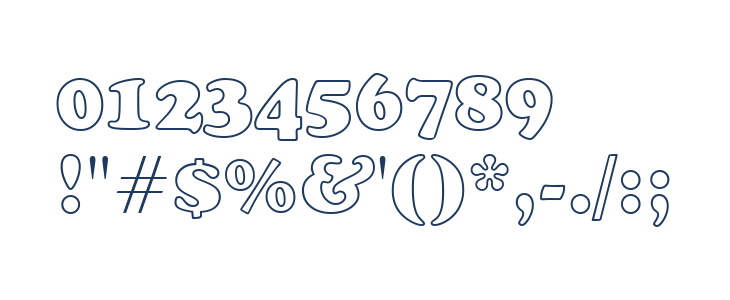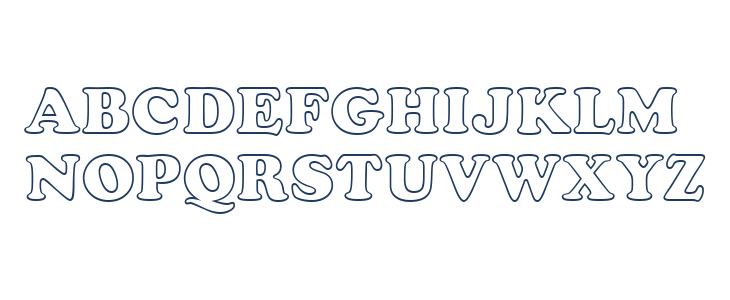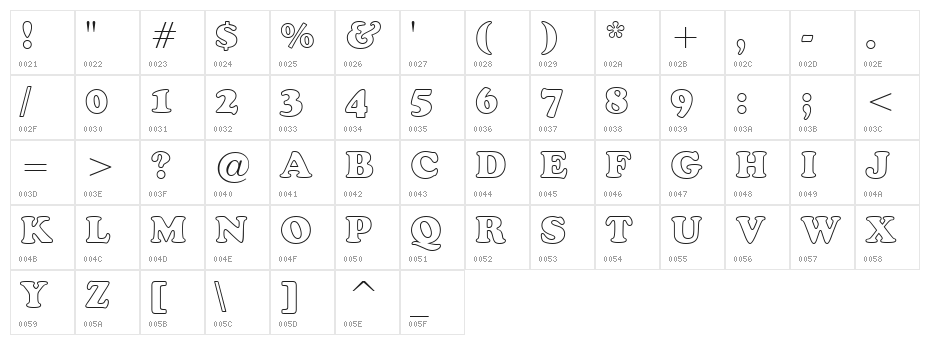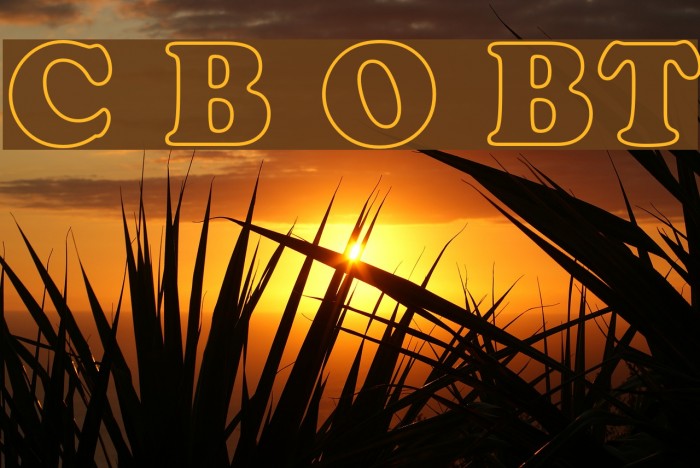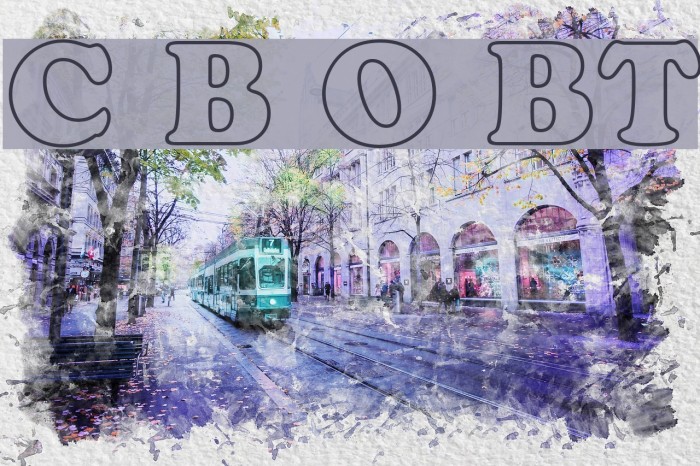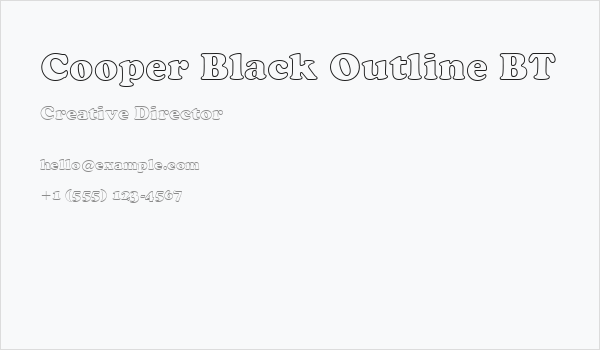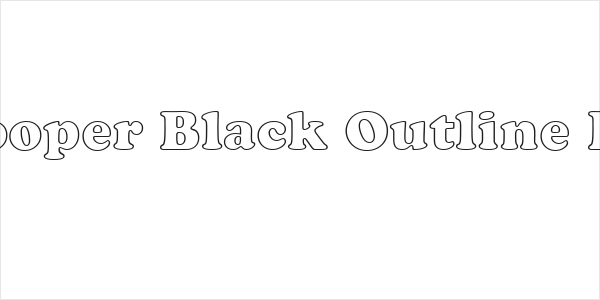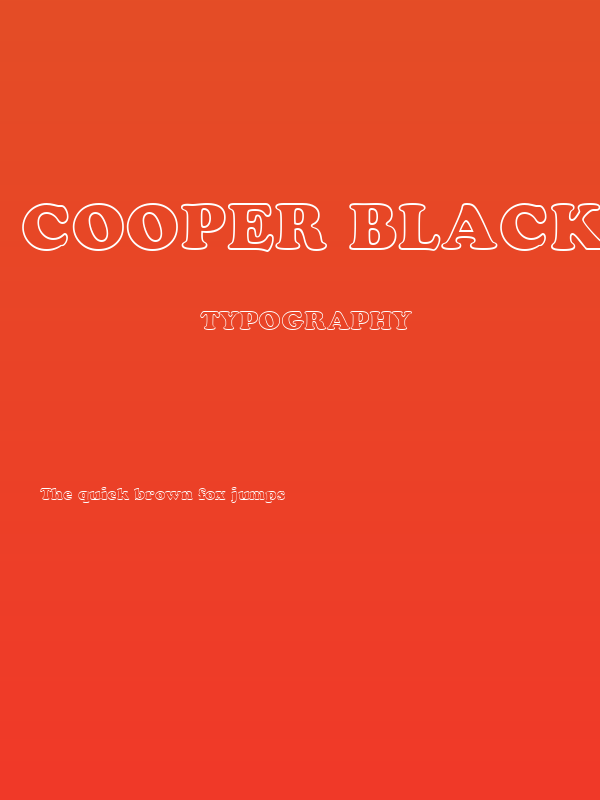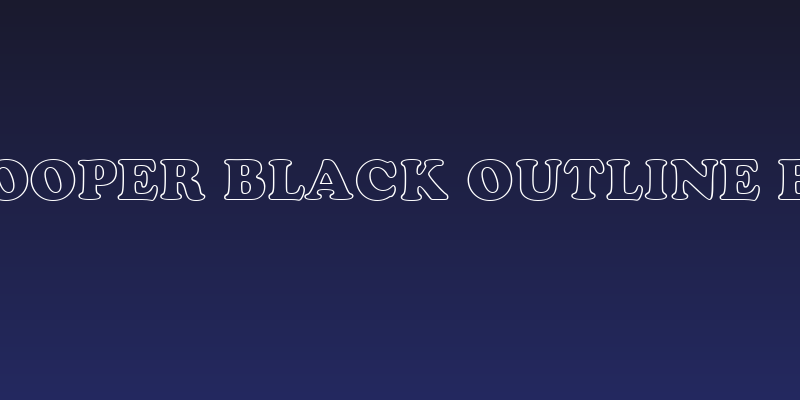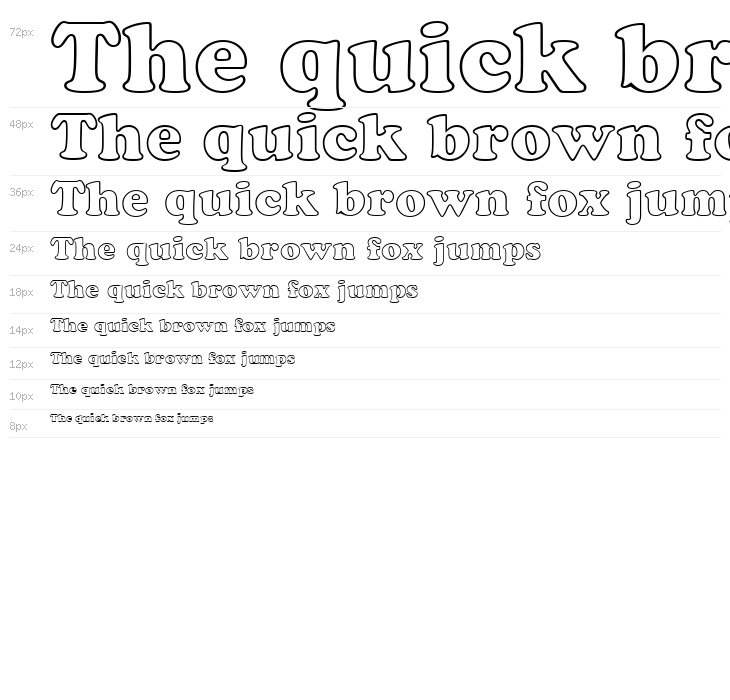
Cooper Black Outline BT Font
Cooper Black Outline BT Description
This font features a bold, playful style with an outline effect that gives it a distinctive and eye-catching appearance. The characters are rounded and have a friendly, approachable look, making them suitable for a variety of creative applications. The outline adds a layer of depth, enhancing the visual interest without compromising readability. This font is versatile, capable of standing out in both digital and print media. Its unique style is perfect for projects that require a touch of whimsy and boldness.
| Overall Style | Playful, Decorative |
| Proposed Projects | Ideal for children's books, posters, logos, and any design needing a playful and bold touch. |